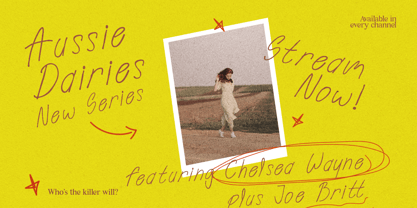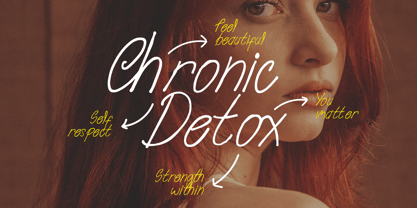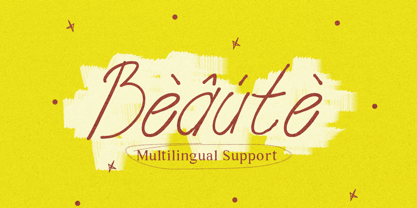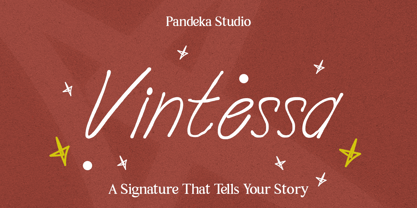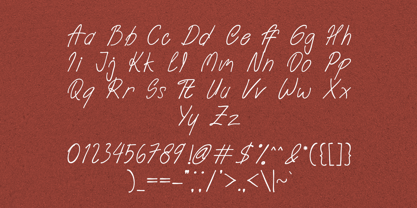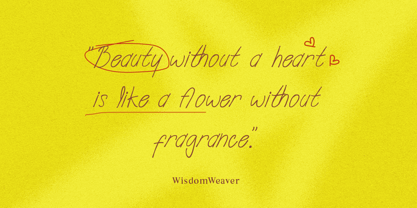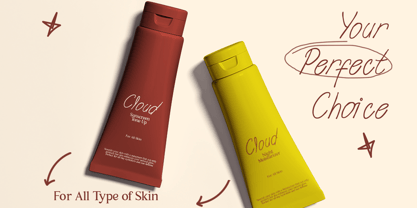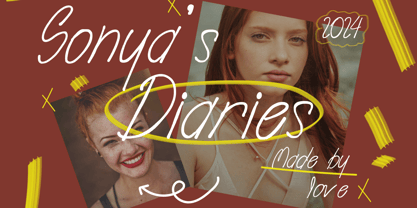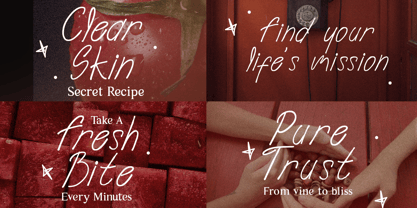
Vintessa
Die Schriftfamilie Vintessa wurde von Sagara Nararya entworfen und von Pandeka Studio veröffentlicht. Vintessa enthält 1 Stile. Mehr über diese Familie
Vintessa - An elegant signature script font with a natural handwritten feel, perfect for stylish calligraphy, modern branding, and timeless designs. Featuring alternates, ligatures, and underlines, Vintessa is ideal for elegant signatures, personal touch projects, wedding invitations, luxury packaging, and sophisticated typography.
Elevate your designs with Vintessa's refined and artistic charm!